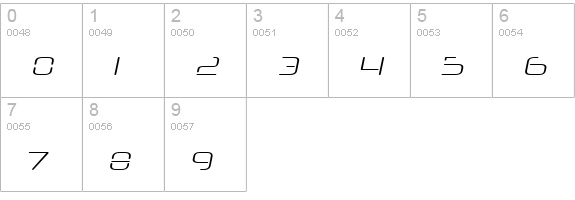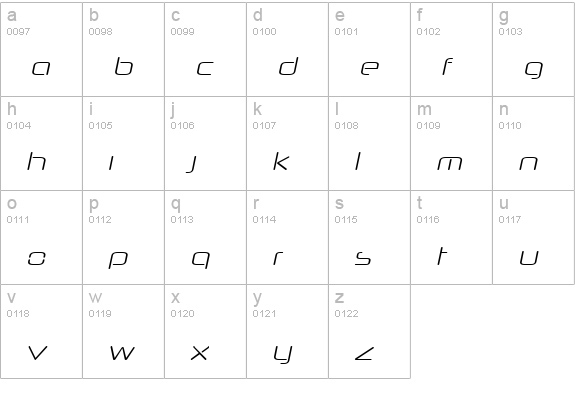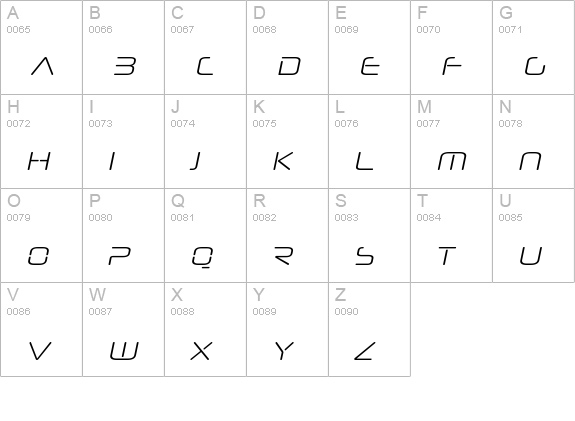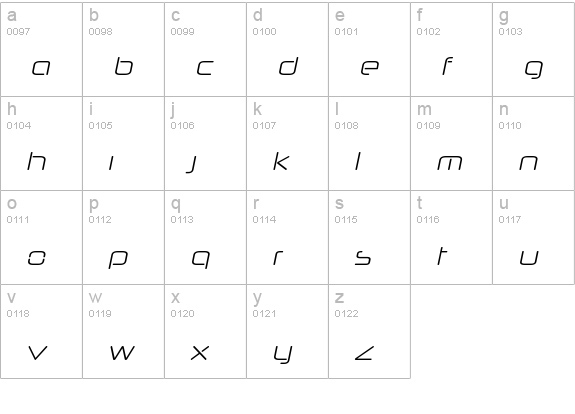
Neuropol Nova Lite Italic Font Details
Neuropol Nova Lite Italic is a distinctive, italic variant in the Neuropol typeface family \xE2\x80\x94 well suited to design and typography projects.
Neuropol Nova Lite Italic font is a sleek and modern typeface that exudes sophistication and elegance. With its stylish slanted design and futuristic appearance, this font is perfect for adding a contemporary touch to any project. The italicized variation of Neuropol Nova Lite adds a touch of flair and dynamism to your text, making it stand out and capture attention. The best part? Neuropol Nova Lite Italic font is available for free download at FontsMarket.com. You can easily enhance your designs with this stunning typeface without breaking the bank. Whether you're working on branding, advertising, or editorial projects, Neuropol Nova Lite Italic font is a versatile choice that will elevate your work to the next level. Don't miss out on the opportunity to enhance your designs with the striking Neuropol Nova Lite Italic font. Download it for free today at FontsMarket.com and take your projects to new heights of style and sophistication.